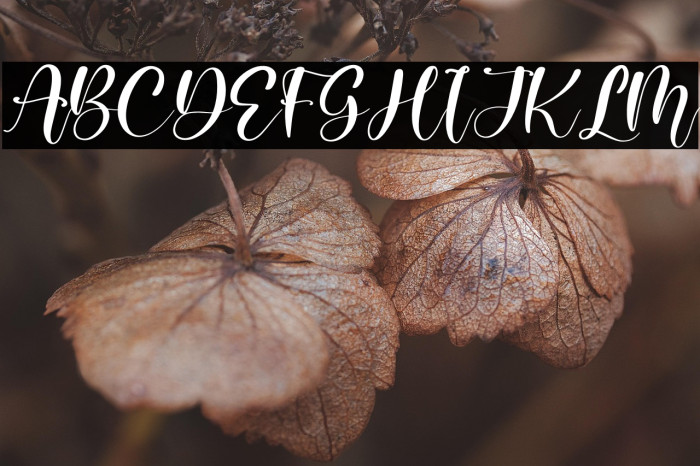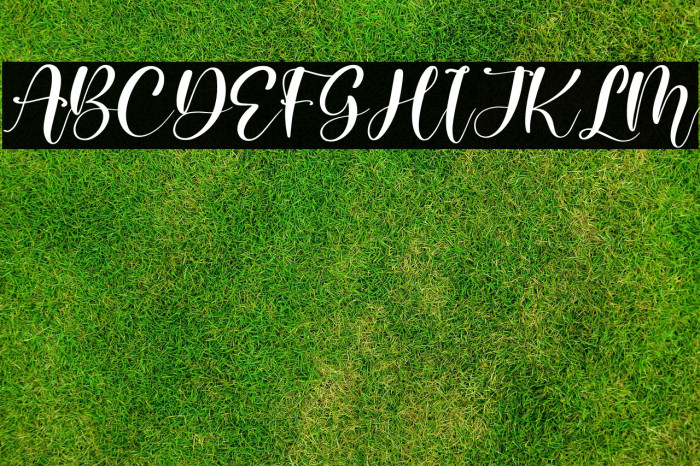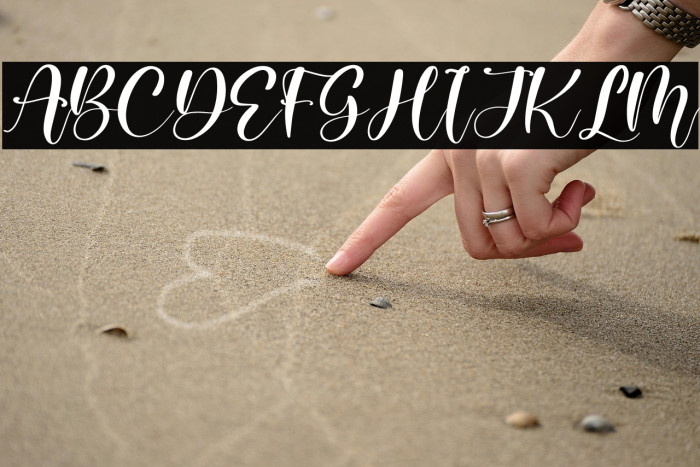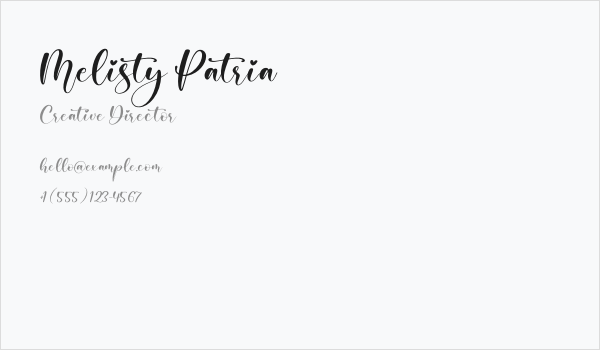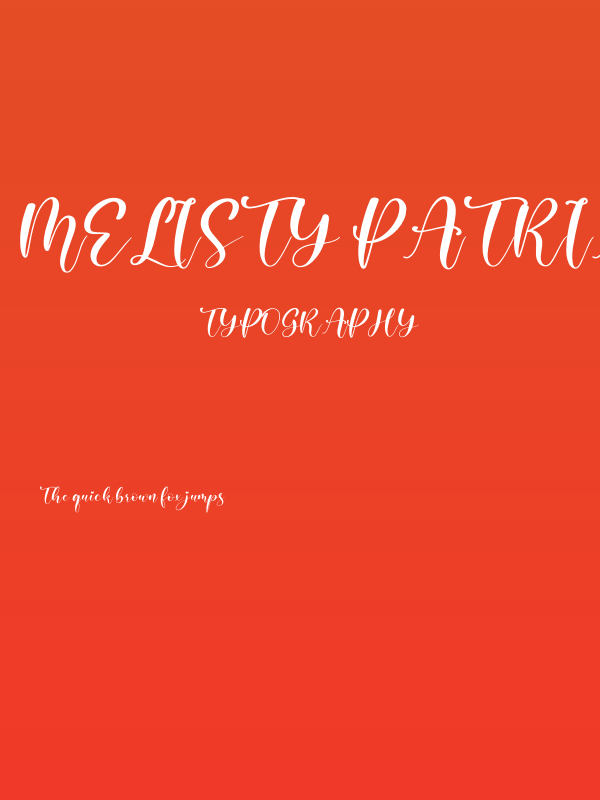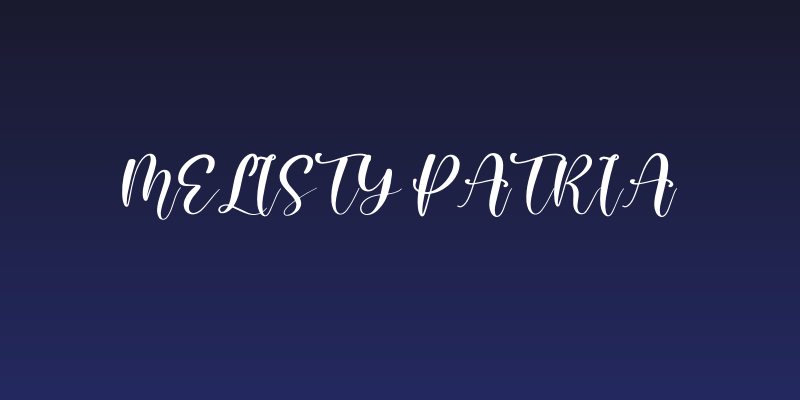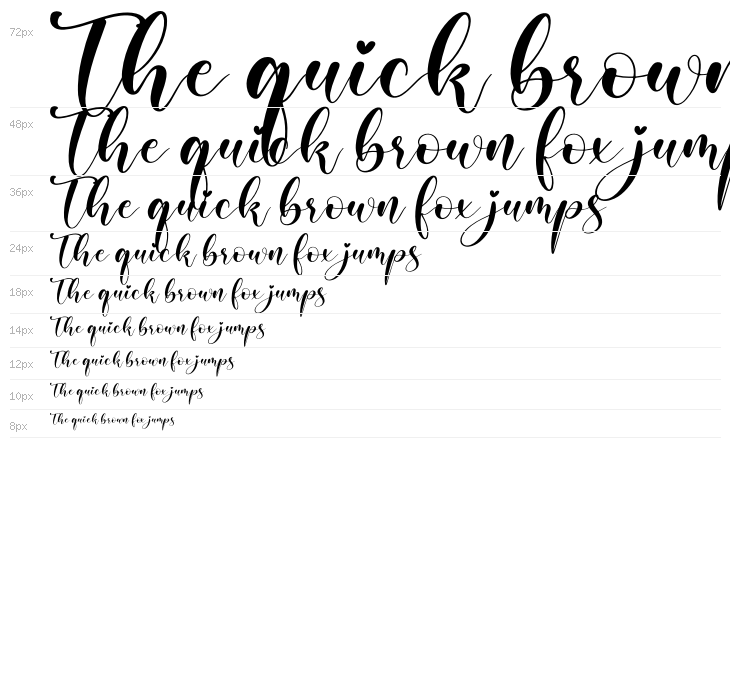
Melisty Patria Font
Melisty Patria Description
This font features an elegant and flowing script style, characterized by its smooth, cursive letterforms that convey a sense of sophistication and grace. The uppercase letters are bold and sweeping, with intricate loops and flourishes that add a decorative touch. The lowercase letters maintain a consistent flow, with some characters extending below the baseline, enhancing the font's dynamic appearance. The numerals are stylishly integrated, matching the overall aesthetic with their curvaceous forms. Special characters are thoughtfully designed to complement the script, ensuring versatility in various design contexts.